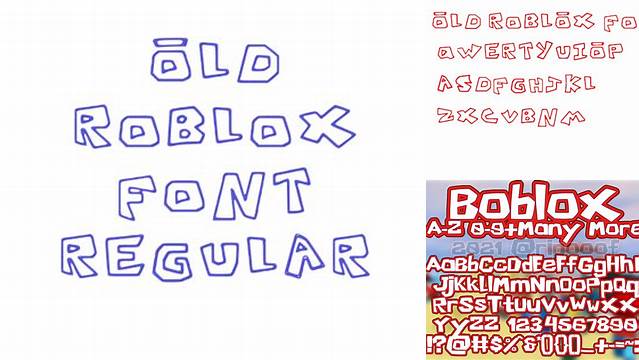
Free Old Roblox Font: Get It Now!
Hey guys! Ever wanted to recreate that classic Roblox vibe? A big part of that is nailing the font. In this article, we're diving deep into how to find and use the free old Roblox font, so you can bring that nostalgic feel to your projects. We’ll cover everything from identifying the font to downloading it safely and using it in various applications. So, buckle up and let’s get started!
What is the Old Roblox Font Called?
The most iconic font associated with older versions of Roblox is often referred to as the "Roblox Font" or sometimes more generically as a blocky, sans-serif font reminiscent of early 2000s design. While Roblox hasn't officially released the exact font name they used, it closely resembles fonts like Luckiest Guy or similar bold, cartoonish sans-serif styles. Many community members have taken it upon themselves to recreate or identify fonts that capture the essence of the old Roblox look. When searching for it, you might find different variations or recreations, but these generally aim to evoke that same feeling of nostalgia. Remember, the key is to find a font that’s bold, easily readable, and has that distinct blocky character. The hunt for the perfect match is part of the fun!
Finding Free Fonts Similar to the Old Roblox Style
Finding the perfect font that screams "old Roblox" doesn't have to break the bank. Several websites offer free fonts that capture that blocky, retro vibe. Sites like DaFont, FontSpace, and Google Fonts are excellent starting points. When browsing, use keywords such as "blocky," "sans-serif," "cartoon," or "retro" to narrow down your search. Look for fonts that have thick, uniform strokes and a playful, slightly chunky appearance. Keep in mind that while you might not find the exact font, many close alternatives will do the trick. Always make sure to check the license of any font you download to ensure it's free for both personal and commercial use, especially if you plan to use it in projects you intend to sell. Don't be afraid to experiment with different fonts until you find one that perfectly matches the nostalgic aesthetic you're aiming for. The beauty of free fonts is that you can try out as many as you like!
Using the Old Roblox Font in Roblox Studio
Alright, so you've got the old Roblox font installed, and now you want to use it in Roblox Studio. Awesome! Open up Roblox Studio and create a new place or open an existing one. To use your new font, you'll primarily be working with TextLabels and TextBoxes. Insert a TextLabel or TextBox into your game by going to the Explorer window, right-clicking on StarterGui (or any other appropriate container), and selecting "Insert Object." Then, search for "TextLabel" or "TextBox" and add it. In the Properties window for your TextLabel or TextBox, you'll find a property called "Font." Click on the dropdown menu, and you should see your newly installed font listed among the available options. Select it, and boom! Your text will now appear in the old Roblox font. You can further customize the appearance by adjusting properties like FontSize, TextColor3, and TextStrokeColor3. Have fun experimenting and bringing that retro Roblox vibe to your creations!
Applying the Old Roblox Font in Graphic Design Software
Using the old Roblox font in graphic design software like Adobe Photoshop, Illustrator, or GIMP can add a fantastic retro touch to your projects. Once you've installed the font on your system (as described earlier for Windows or macOS), it will automatically be available in these programs. Open your graphic design software and create a new document or open an existing one. Select the text tool and create a text layer. In the character panel (usually found under the "Window" menu), you'll see a dropdown menu for selecting the font. Scroll through the list or type the name of your installed font to find it. Once selected, your text will appear in the old Roblox font. You can then adjust the font size, color, and other properties to suit your design. This is perfect for creating vintage-style logos, posters, or social media graphics that capture the nostalgic feel of classic Roblox.
Utilizing the Old Roblox Font in Video Editing Software
Adding the old Roblox font to your videos can give them a unique, nostalgic flair. Most video editing software, such as Adobe Premiere Pro, Final Cut Pro, and DaVinci Resolve, will automatically recognize any fonts installed on your system. To use the font, create a new text layer in your video editing project. In the text settings panel, you'll find a font selection menu. Scroll through the list to find your installed old Roblox font, or simply type its name into the search bar. Once selected, your text will appear in the chosen font. Adjust the size, color, and position of the text to fit your video. This is great for creating intro screens, lower thirds, or end credits that evoke the retro gaming aesthetic. Whether you're making a tribute video to old Roblox or just want to add a vintage touch to your content, using this font can make a big difference.
Creating a Retro Roblox Logo with the Free Font
Want to create a retro Roblox logo using the free font? It's a fun and simple project! Start by opening your favorite graphic design software (like Photoshop, GIMP, or even an online tool like Canva). Create a new document with a suitable resolution for a logo. Add a text layer and type the name or initials you want to use for the logo. Select the old Roblox font you've installed. Experiment with different font sizes and colors to find a combination that looks appealing. Consider adding a stroke or outline to the text to make it stand out. You can also add some simple shapes or graphics around the text to enhance the retro feel. Think about using pixelated textures or simple geometric patterns. Once you're happy with the design, save the logo in a high-resolution format like PNG or SVG. You can then use your retro Roblox logo for your website, social media profiles, or any other project where you want to showcase that classic vibe.
Designing Thumbnails with the Old Roblox Font
Using the old Roblox font in your video thumbnails can instantly grab the attention of viewers who are nostalgic for the classic Roblox era. Start by creating a new image in your graphic design software with the dimensions suitable for YouTube or Twitch thumbnails. Add a background image that relates to your video content. Create a text layer and type a short, catchy phrase that summarizes the video's main topic. Select the old Roblox font you've installed and adjust the font size and color to make the text highly visible. Consider adding a contrasting stroke or shadow to further enhance readability. Place the text strategically on the thumbnail, ensuring it doesn't cover important visual elements. Add any additional graphics or images that help convey the video's content. Save the thumbnail in a format like JPG or PNG and upload it to your video platform. A well-designed thumbnail with the old Roblox font can significantly increase your video's click-through rate by appealing to viewers' sense of nostalgia.
Making Roblox Game UI with the Classic Font
Bringing the classic Roblox font into your game's UI can create a truly authentic retro experience. In Roblox Studio, insert ScreenGuis and Frames to build your UI elements. Within these elements, use TextLabels and TextButtons to display text. Select each TextLabel or TextButton and, in the Properties window, change the Font property to your installed old Roblox font. Adjust the FontSize property to ensure the text is legible but still fits the retro aesthetic. Use a limited color palette that matches the classic Roblox style, such as blues, greens, and yellows. Consider adding simple borders or backgrounds to the UI elements to enhance their visual appeal. Test the UI on different devices to ensure it looks good on both desktop and mobile platforms. By carefully designing your game's UI with the classic font and color scheme, you can create a nostalgic and immersive experience for players.
Where to Find Free Old Roblox Font Alternatives?
If you're having trouble finding the exact old Roblox font, don't worry! There are plenty of excellent alternatives that capture a similar retro vibe. Websites like DaFont, FontSpace, and Google Fonts are great resources for finding free fonts. Search for keywords like "blocky," "pixel," "retro," "arcade," or "8-bit" to discover fonts that have a similar aesthetic. Fonts like Luckiest Guy, Bangers, and Komika Axis are popular choices that many Roblox developers use to evoke the classic Roblox look. Experiment with different fonts until you find one that you like. Remember to check the font's license to ensure it's free for commercial use if you plan to use it in your game or project. Don't be afraid to get creative and combine different fonts to achieve the perfect retro look.
How to Identify a Font Similar to the Old Roblox Font
Sometimes, you might come across an image or a piece of text that uses a font similar to the old Roblox font, but you're not sure what it is. Thankfully, there are several online tools that can help you identify fonts. One popular option is WhatTheFont by MyFonts. Simply upload an image of the text, and the tool will analyze it and suggest matching or similar fonts. Another great tool is Font Matcherator by Fontspring. It works in a similar way, allowing you to upload an image and find matching fonts from their extensive database. Google Fonts also has a font identification feature that lets you draw the shapes of the letters, and it will suggest fonts that match. Keep in mind that these tools are not always perfect, but they can often get you close to the font you're looking for. Once you've identified a few potential matches, you can compare them side-by-side to see which one looks the most like the old Roblox font.
Is the Old Roblox Font Copyrighted?
This is a tricky question! The exact old Roblox font might not be explicitly copyrighted if it was a standard font or a heavily modified version of one. However, Roblox's branding and specific logos are definitely protected by copyright. When using fonts that resemble the old Roblox font, it's crucial to avoid creating anything that could be mistaken for official Roblox content. If you're using the font for personal projects or fan art, you're generally in the clear. However, if you plan to use it for commercial purposes, such as selling merchandise or creating a game that could be seen as an official Roblox product, you need to be very careful. It's always a good idea to consult with a legal professional if you're unsure about the copyright implications of using a particular font. When in doubt, it's best to err on the side of caution and use a font that is clearly different from the official Roblox branding.
Best Font Sizes for the Old Roblox Font in Games
Choosing the right font size is crucial for ensuring readability and maintaining the retro aesthetic in your Roblox games. For UI elements like TextLabels and TextButtons, a font size between 12 and 16 points is generally a good starting point. However, the ideal size will depend on the specific font you're using and the resolution of your game. It's important to test the font size on different devices and screen sizes to ensure it looks good on both desktop and mobile platforms. For in-game text, such as character names or dialogue, you might want to use a slightly larger font size, such as 18 or 20 points. Consider adding a stroke or shadow to the text to improve readability, especially if the background is busy or colorful. Experiment with different font sizes and styles until you find a combination that is both legible and visually appealing. Remember, the goal is to create a user interface that is easy to use and enhances the player's experience.
Pairing the Old Roblox Font with Other Fonts
While the old Roblox font is great for creating a retro vibe, it might not be suitable for all types of text in your game or project. In some cases, you might want to pair it with another font to create a more balanced and visually appealing design. When choosing a secondary font, look for something that complements the blocky, retro style of the old Roblox font. A simple, clean sans-serif font like Arial or Helvetica can work well for body text or smaller UI elements. Alternatively, you could use a slightly more modern sans-serif font like Open Sans or Roboto. Avoid using fonts that are too similar to the old Roblox font, as this can create a cluttered and confusing look. Instead, aim for contrast. Use the old Roblox font for headings and titles, and the secondary font for body text and descriptions. Experiment with different font combinations until you find a pairing that you like. A well-chosen font pairing can elevate your design and make it more professional and visually appealing.
Customizing the Old Roblox Font for Unique Designs
One of the best ways to make your designs stand out is to customize the old Roblox font to create something truly unique. You can do this in a variety of ways, such as adding strokes, shadows, or gradients to the text. In graphic design software like Photoshop or GIMP, you can use the layer styles to add these effects. Experiment with different colors and thicknesses for the strokes, and try adding a subtle drop shadow to make the text pop. Gradients can also be a great way to add depth and visual interest. Another way to customize the font is to modify the individual letters. You can use the pen tool to adjust the shapes of the letters, or you can add small details like pixelated edges or rounded corners. Just be careful not to overdo it, as too much customization can make the font difficult to read. The goal is to enhance the font's existing style while adding your own personal touch.
Using the Old Roblox Font for Educational Games
The old Roblox font can be a great choice for educational games, especially those aimed at younger children. Its simple, blocky style is easy to read and can help to capture children's attention. When using the font in educational games, it's important to choose a font size that is appropriate for the age group you're targeting. Use clear and concise language, and avoid using overly complex words or sentences. Consider using color to highlight important information or to make the text more visually appealing. You can also use the font to create fun and engaging activities, such as word searches, crosswords, or fill-in-the-blank exercises. By using the old Roblox font in a creative and engaging way, you can make learning more fun and accessible for children.
Creating Stickers with the Free Old Roblox Font
Designing stickers using the free old Roblox font is a fun and creative way to express your love for the classic game. You can create stickers with your name, favorite quotes, or even custom designs. Start by creating a new document in your graphic design software with the desired dimensions for your stickers. Add a text layer and type the text you want to use for the sticker. Select the old Roblox font you've installed and adjust the font size and color to make the text stand out. Consider adding a stroke or outline to the text to make it more visible. You can also add some simple graphics or illustrations around the text to enhance the design. Once you're happy with the design, save the sticker in a high-resolution format like PNG or SVG. You can then print the stickers on sticker paper and cut them out, or you can use a sticker printing service to have them professionally printed. These stickers are perfect for decorating your laptop, water bottle, or any other surface where you want to show off your retro Roblox style.
Designing T-Shirts with the Old Roblox Font
Creating t-shirt designs with the old Roblox font is a great way to showcase your love for the classic game in a wearable format. You can design t-shirts with your username, funny phrases, or even custom graphics. Start by creating a new document in your graphic design software with the dimensions suitable for a t-shirt design. Add a text layer and type the text you want to use for the t-shirt. Select the old Roblox font you've installed and adjust the font size and color to make the text stand out. Consider adding a stroke or outline to the text to make it more visible. You can also add some simple graphics or illustrations around the text to enhance the design. Make sure the design is centered and balanced on the t-shirt template. Save the design in a high-resolution format like PNG or SVG. You can then use a t-shirt printing service to have your design printed on a t-shirt. These t-shirts are perfect for wearing to Roblox events, gaming conventions, or just for everyday wear to show off your retro Roblox style.
Making Posters with the Old Roblox Font
Designing posters with the old Roblox font can add a nostalgic touch to your room or event. You can create posters with your favorite Roblox characters, quotes, or even custom artwork. Start by creating a new document in your graphic design software with the desired dimensions for your poster. Add a background image or color that complements your design. Add a text layer and type the text you want to use for the poster. Select the old Roblox font you've installed and adjust the font size and color to make the text stand out. Consider adding a stroke or outline to the text to make it more visible. You can also add some graphics or illustrations around the text to enhance the design. Make sure the design is balanced and visually appealing. Save the poster in a high-resolution format like PNG or SVG. You can then print the poster at a local print shop or use an online printing service. These posters are perfect for decorating your room, game room, or for advertising a Roblox-themed event.
How to Use the Old Roblox Font for Streaming Overlays
If you're a streamer who loves retro games, using the old Roblox font in your streaming overlays can add a unique and nostalgic touch to your broadcast. You can use the font for your name, game titles, or even custom messages. Start by creating a new overlay in your streaming software, such as OBS or Streamlabs. Add a text element to the overlay and type the text you want to display. Select the old Roblox font you've installed and adjust the font size and color to make the text stand out. Consider adding a stroke or outline to the text to make it more visible. You can also add some simple graphics or animations around the text to enhance the design. Make sure the overlay is positioned in a way that doesn't obstruct the gameplay. Test the overlay during a practice stream to ensure it looks good and is easy to read. By using the old Roblox font in your streaming overlays, you can create a unique and engaging broadcast that appeals to viewers who are nostalgic for the classic game.
Creating Social Media Graphics with the Old Roblox Font
Using the old Roblox font in your social media graphics can help you create a consistent and recognizable brand identity. You can use the font for your profile pictures, cover photos, and even custom graphics. Start by creating a new image in your graphic design software with the dimensions suitable for the social media platform you're targeting. Add a background image or color that complements your design. Add a text layer and type the text you want to use for the graphic. Select the old Roblox font you've installed and adjust the font size and color to make the text stand out. Consider adding a stroke or outline to the text to make it more visible. You can also add some graphics or illustrations around the text to enhance the design. Make sure the design is balanced and visually appealing. Save the graphic in a format suitable for the social media platform, such as JPG or PNG. By using the old Roblox font consistently across your social media channels, you can create a strong and memorable brand identity.
Integrating the Old Roblox Font in Newsletters
Incorporating the old Roblox font into your email newsletters can add a touch of nostalgia and uniqueness to your communications. You can use the font for headings, titles, or even body text, depending on the overall design and purpose of your newsletter. Most email marketing platforms allow you to upload custom fonts or use web-safe fonts that closely resemble the old Roblox font. When using the font, consider your target audience and the message you want to convey. The old Roblox font can be particularly effective for newsletters targeting gamers, retro enthusiasts, or subscribers who have an affinity for the classic Roblox era. Make sure to test your newsletter across different email clients and devices to ensure the font renders correctly and is easily readable. You can also experiment with different font sizes, colors, and styles to create a visually appealing and engaging newsletter that captures the essence of the old Roblox aesthetic.
Designing Invitations with the Old Roblox Font
Creating invitations with the old Roblox font can add a fun and retro touch to your events, whether it's a birthday party, gaming tournament, or themed gathering. You can use the font for the event title, date, time, and other important details. Start by designing the layout of your invitation in graphic design software or an online invitation maker. Add a text layer and type the text you want to include on the invitation. Select the old Roblox font you've installed and adjust the font size and color to make the text stand out. Consider adding a stroke or outline to the text to make it more visible. You can also add some graphics or illustrations around the text to enhance the design, such as pixelated images or retro gaming elements. Make sure the invitation is clear, concise, and visually appealing. Save the invitation in a high-resolution format like PNG or SVG. You can then print the invitations at home or use a professional printing service. These invitations are perfect for setting the tone for a fun and nostalgic event.
Creating Ebooks with the Old Roblox Font
Using the old Roblox font in your ebooks can give them a unique and nostalgic feel, especially if the content relates to gaming, retro culture, or the history of Roblox. You can use the font for titles, headings, or even chapter introductions to capture the reader's attention. When formatting your ebook, make sure the font is legible and well-spaced. Consider using a larger font size for headings and a slightly smaller font size for body text. You can also experiment with different font styles, such as bold or italic, to emphasize important information. Most ebook publishing platforms support custom fonts, so you can easily upload the old Roblox font and use it in your ebook. Make sure to test your ebook on different devices and e-readers to ensure the font renders correctly and is easily readable. By using the old Roblox font creatively, you can create an ebook that is both informative and visually appealing.
Making Business Cards with the Old Roblox Font
Designing business cards with the old Roblox font can be a creative way to stand out and showcase your unique style, especially if your business is related to gaming, technology, or retro culture. You can use the font for your name, job title, company name, or other contact information. When designing your business card, keep the layout clean and simple. Use the old Roblox font sparingly to avoid overwhelming the design. Consider using a complementary font for other elements, such as your address or website. Choose a color scheme that reflects your brand and complements the retro aesthetic of the font. Make sure the text is legible and well-spaced. Save the design in a high-resolution format and use a professional printing service to ensure the business cards are printed with high quality. These business cards are a great way to make a lasting impression and show off your unique personality.
Designing Mobile App Interfaces with the Old Roblox Font
Incorporating the old Roblox font into your mobile app interfaces can add a nostalgic and playful touch, especially if your app targets gamers, retro enthusiasts, or users who appreciate a vintage aesthetic. You can use the font for headings, buttons, labels, or other UI elements to create a cohesive and visually appealing design. When designing your app interface, consider the overall user experience. Make sure the font is legible and well-spaced, especially on smaller screens. Use a color scheme that complements the retro style of the font and enhances the app's usability. Test the app on different devices and screen sizes to ensure the font renders correctly and is easily readable. You can also experiment with different font sizes, styles, and animations to create a unique and engaging user interface that captures the essence of the old Roblox era.
Creating Infographics with the Old Roblox Font
Using the old Roblox font in your infographics can help you create visually appealing and engaging content that captures the attention of your audience. You can use the font for titles, headings, or labels to highlight key information and create a cohesive design. When designing your infographic, choose a color scheme that complements the retro style of the font and enhances the overall visual appeal. Use graphics, illustrations, and icons to support the text and make the information more accessible. Make sure the infographic is well-organized and easy to read. Use headings and subheadings to break up the text and guide the reader through the information. Save the infographic in a high-resolution format and share it on social media, your website, or other online platforms. By using the old Roblox font creatively, you can create an infographic that is both informative and visually appealing.